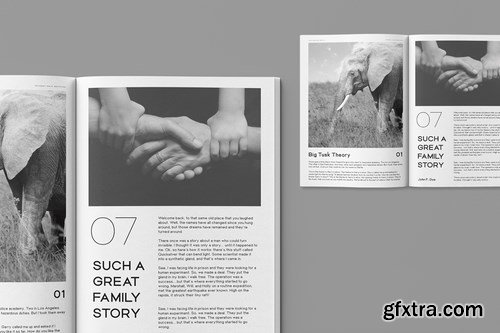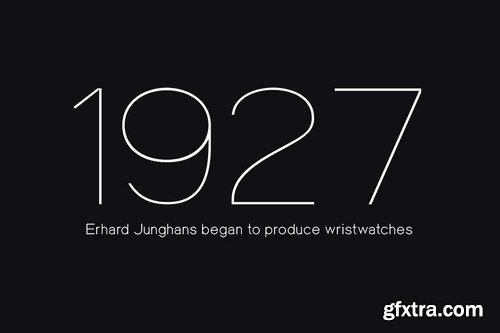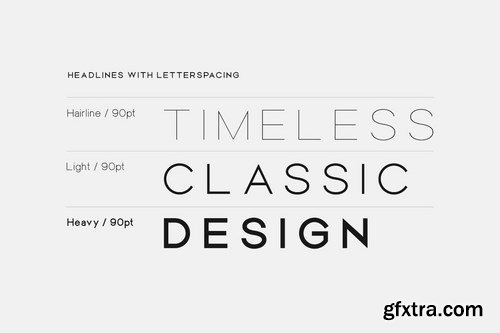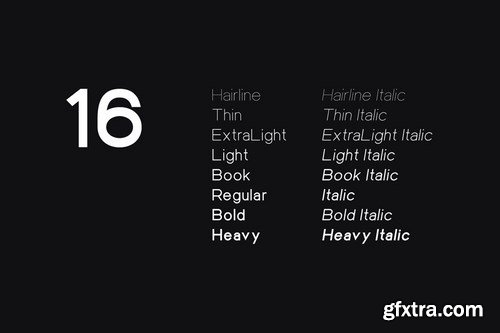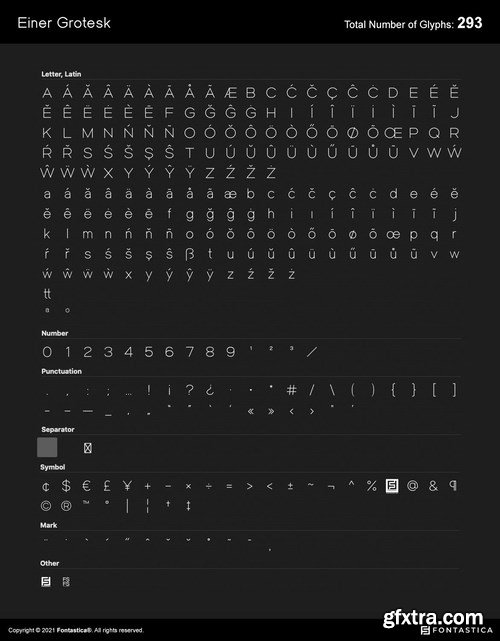
Einer Grotesk is a timeless sans-serif typeface family of 16 fonts, made with perfection in every aspect of design. Created with a special focus on readability and visual aesthetics, this typeface can transform your design projects to another level of craftsmanship.
Handcrafted and designed with powerful OpenType features in mind, each weight includes extended language support including Western European & Central European sets. A total of 293 glyphs are included.
Einer Grotesk is a perfect choice for graphic design, text presentation, web design, print and display use. The typeface can be an amazing option for beautiful branding, logo / logotype design projects, marketing graphics, banners, posters, signage, corporate identities as well as editorial design. Adding extra letter-spacing for the Caps will make this font perfect for minimal headlines and logotypes as shown in promo images here.
Einer Grotesk typeface family comes with a total of 16 fonts having 8 weights (Thin / ExtraLight / Book / Regular / Bold / Heavy) as well as Italic versions of all weights. The pack contains OTF, TTF and Web Fonts (all EOT, SVG, WOFF included) as licensing options. HTML & CSS WebFont preset & demo is Included in the download pack.